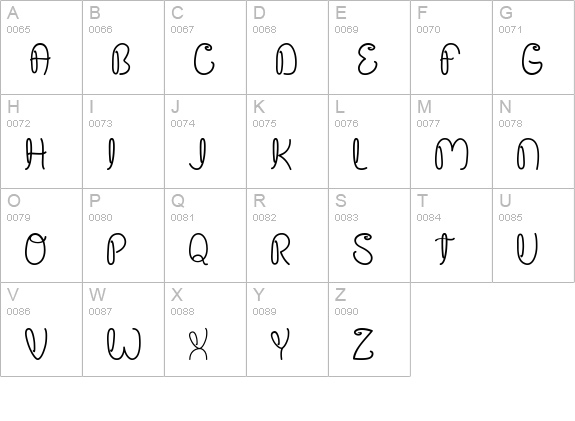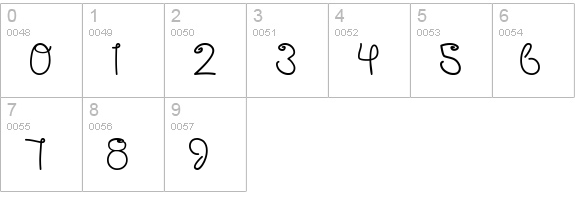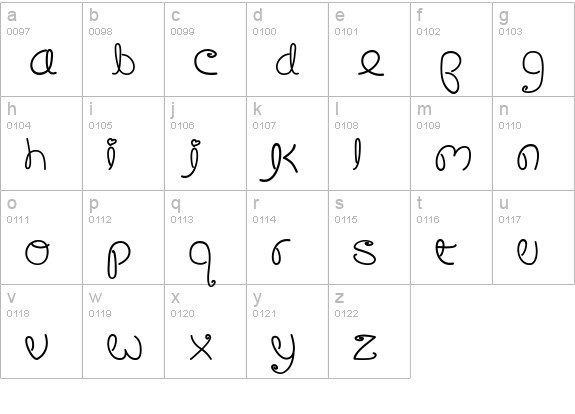
Crushed Out Girl Pen Font Details
Crushed Out Girl Pen font is a charming and whimsical handwritten typeface that exudes a sense of playfulness and creativity. The uneven strokes and unique pen-like appearance give this font a distinctive and artistic flair, making it perfect for a variety of design projects. Whether you are creating greeting cards, posters, logos, or social media graphics, Crushed Out Girl Pen font will add a touch of fun and personality to your work. The best part is that Crushed Out Girl Pen font is available for free download at FontsMarket.com. This means that you can easily access this delightful font and use it in your projects without any cost. So go ahead and unleash your creativity with Crushed Out Girl Pen font today!